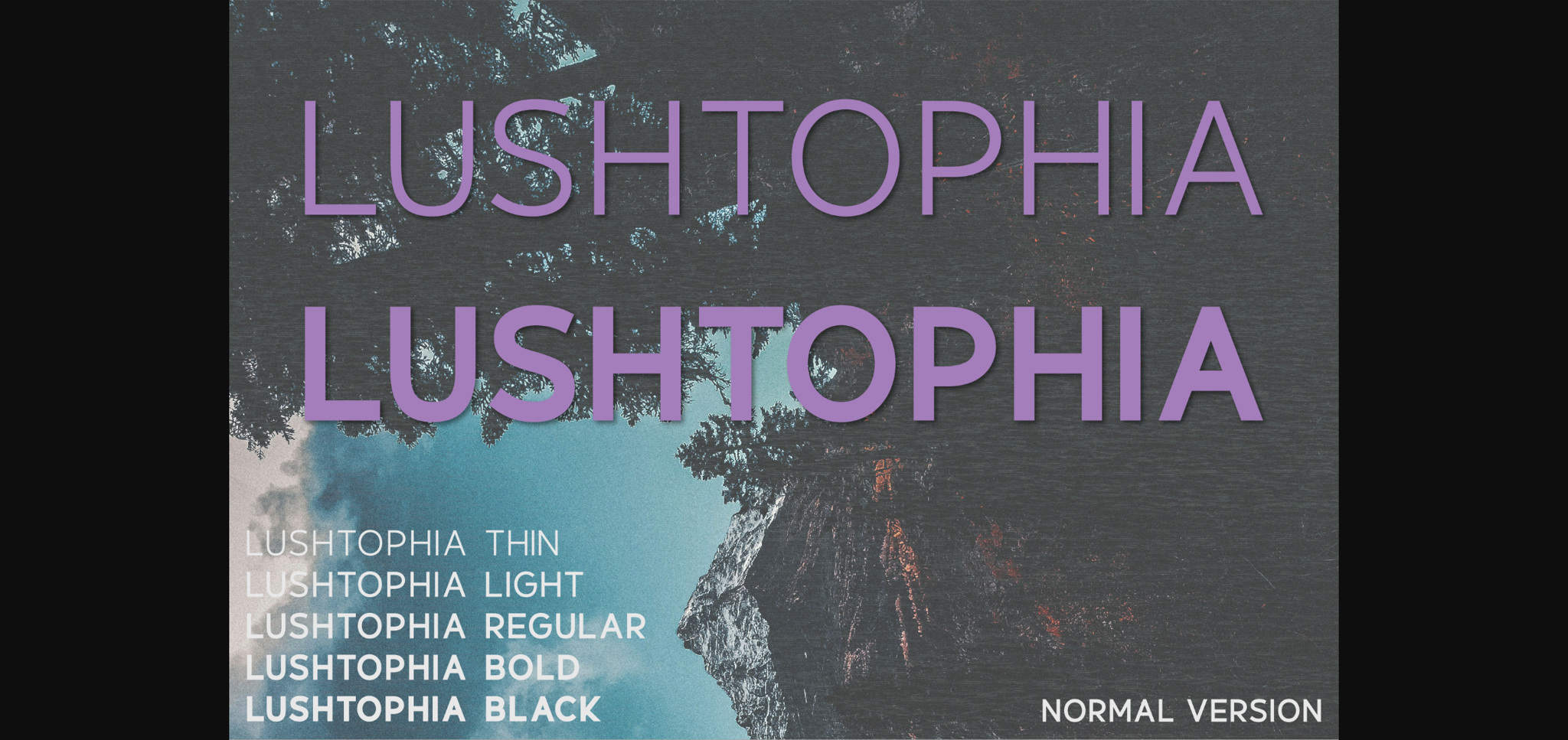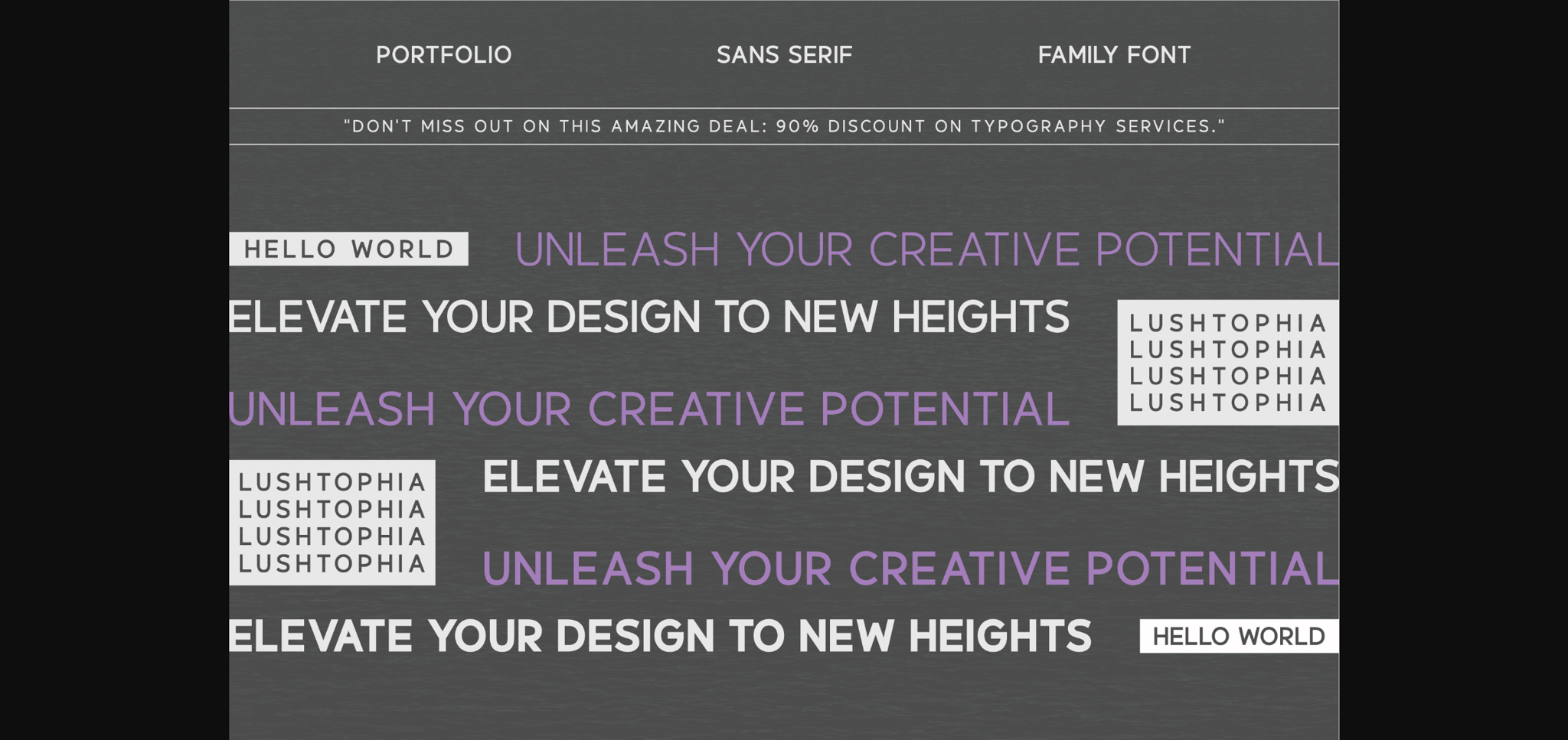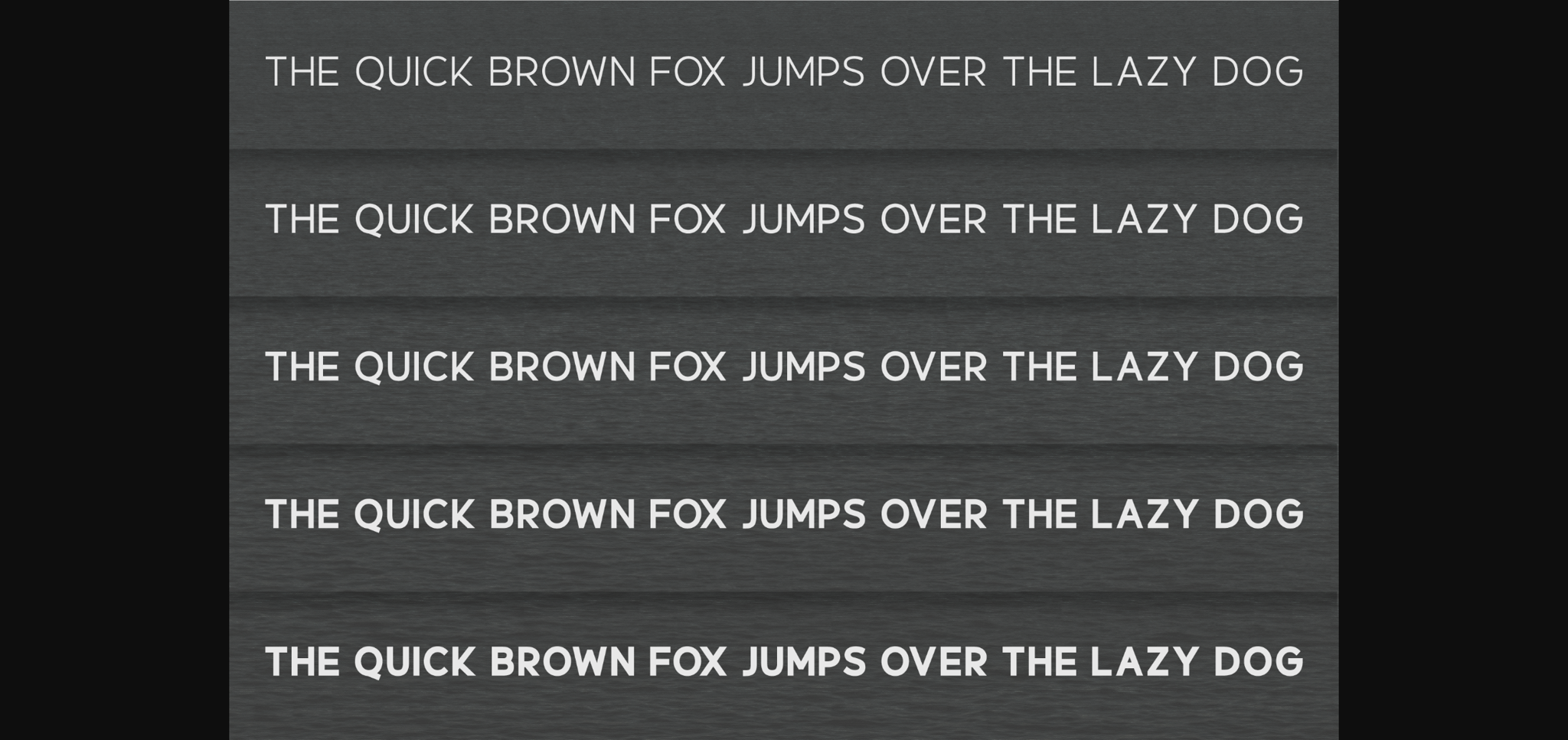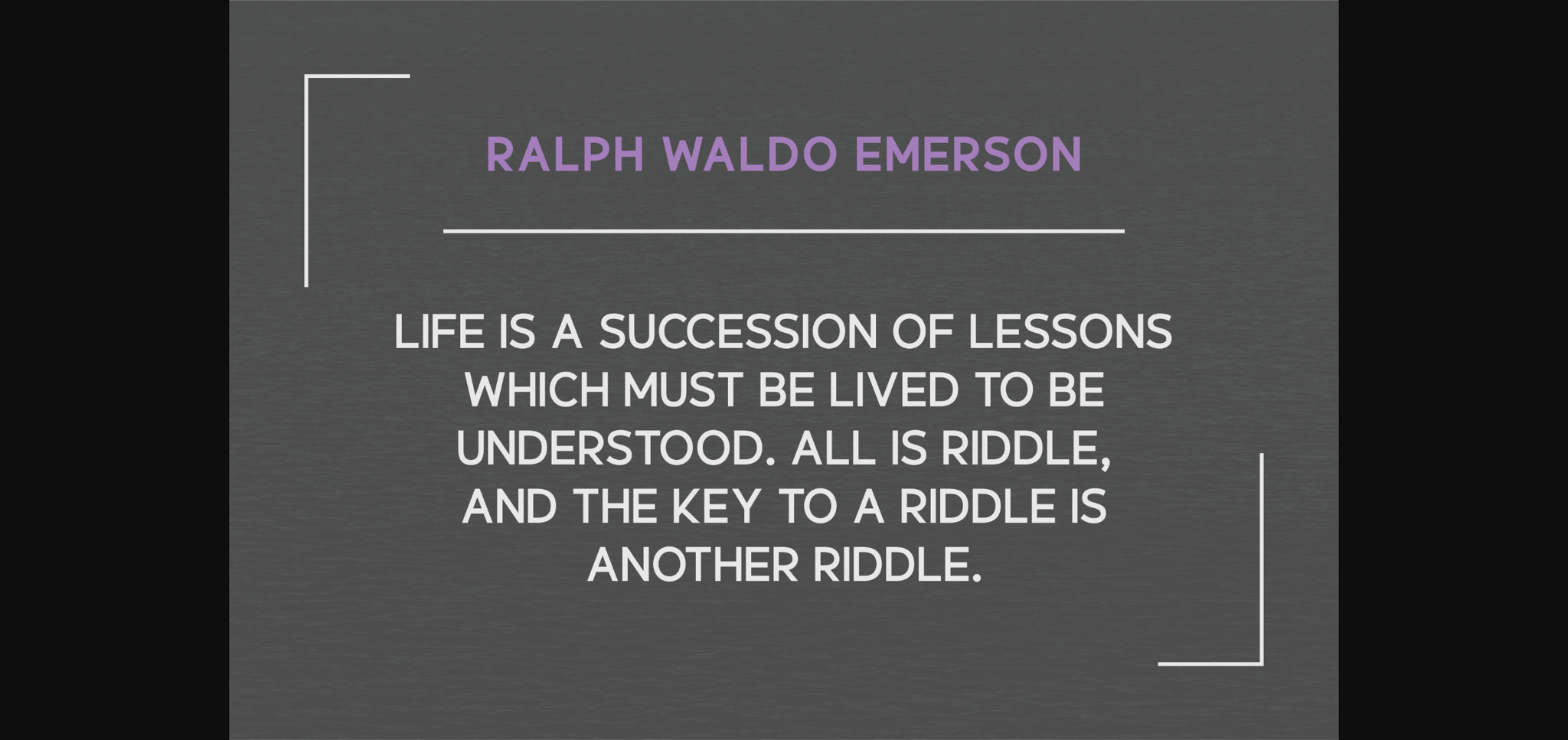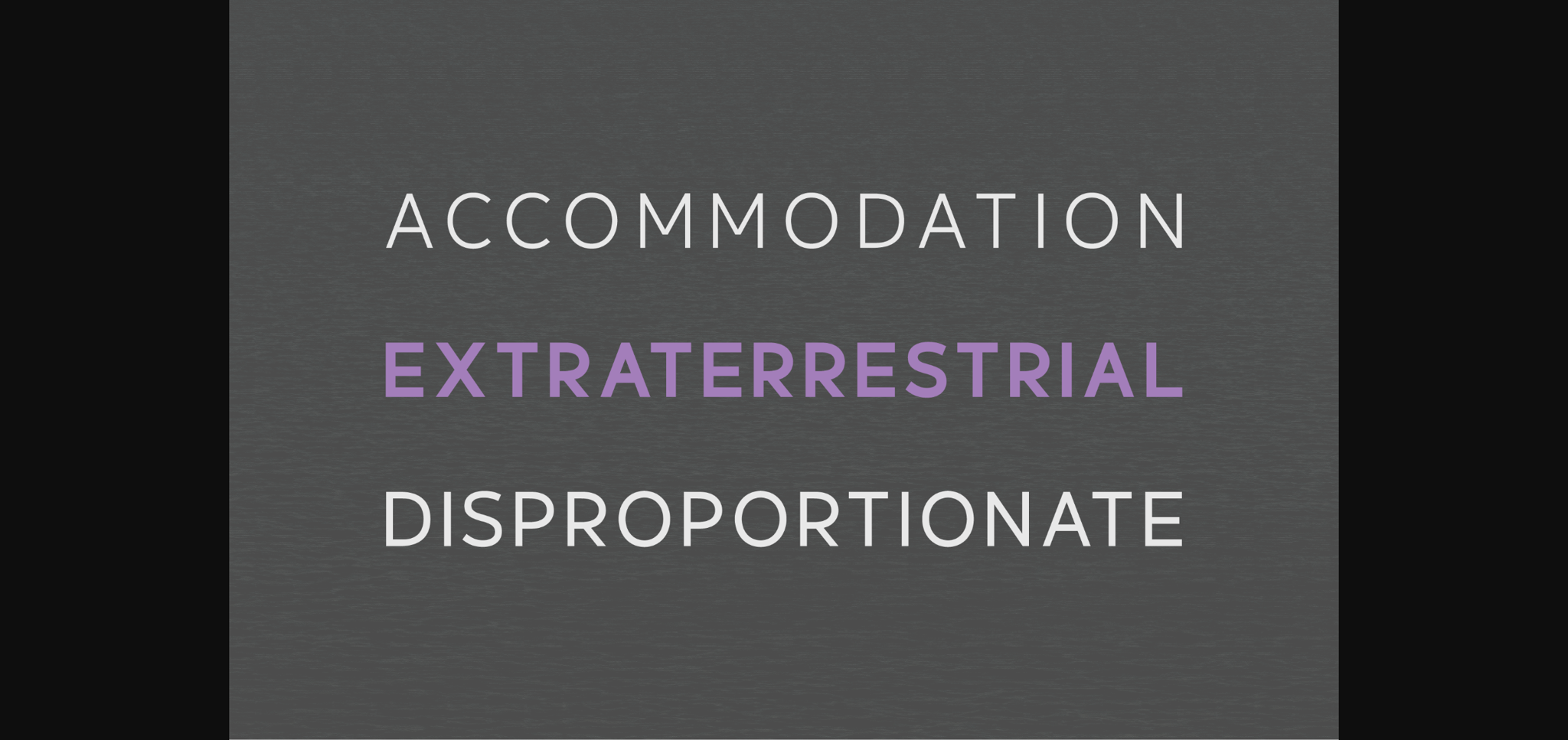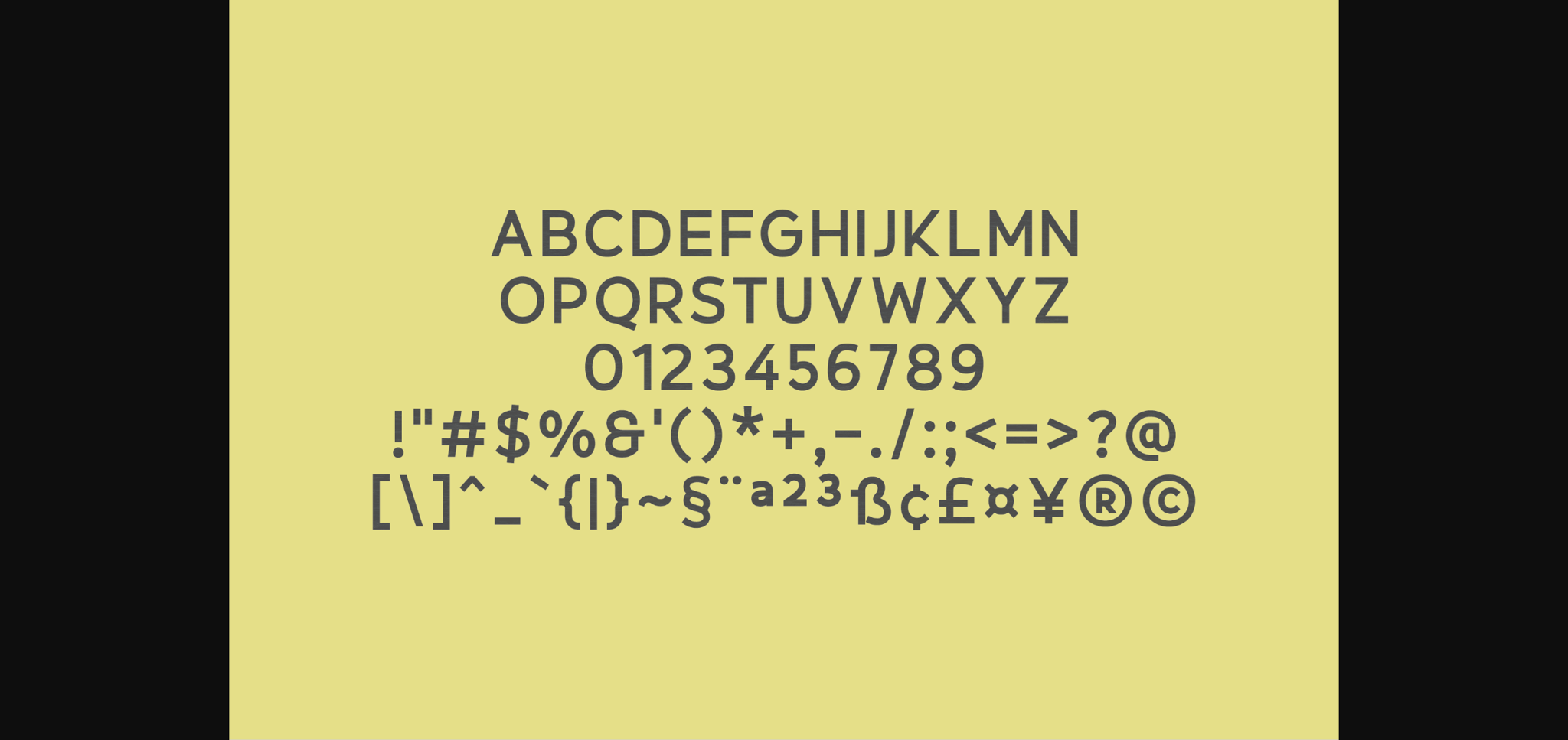
Lushtophia Font
About Lushtophia Font
Welcome to Lushtophia, a beautiful font that defines the perfect blend of elegance and minimalism. This sans serif set of typefaces, ornamented with five unique weights, marries the essence of contemporary design with a touch of opulence. Immaculately forged with meticulous attention to detail, Lushtophia effortlessly lends an upscale aesthetic to any creative venture, be it for a magazine, a head-turning logo, or a captivating film poster. Experience the harmonious fusion of sophistication and simplicity with Lushtophia, enabling your designs to radiate with an allure that endures. Unleash the potential of this magnificent font family today.